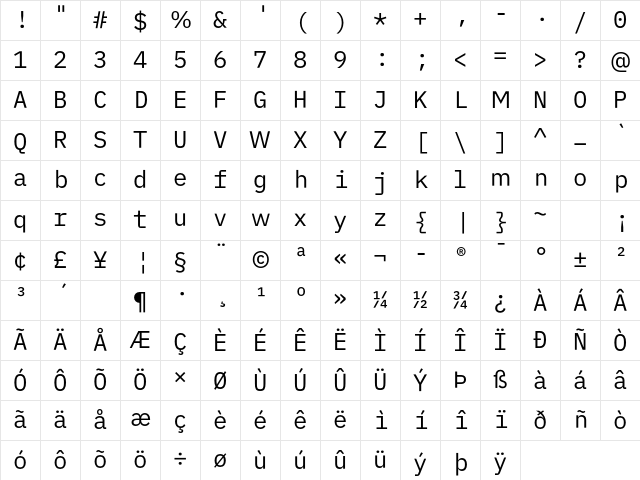
iA Writer Duospace is a composed and adaptable typeface that performs quietly and consistently across a wide range of design contexts.
Pro Tip: Use iA Writer Duospace in both headline and body roles to test its range before committing to a single application.